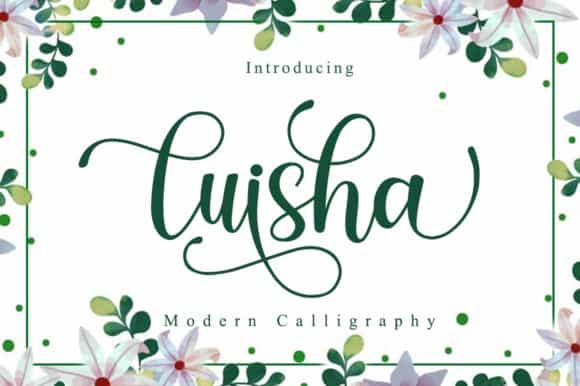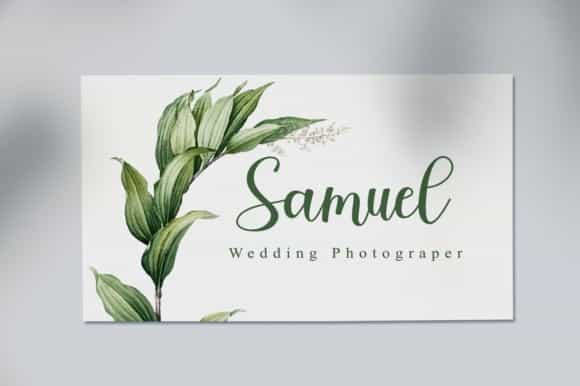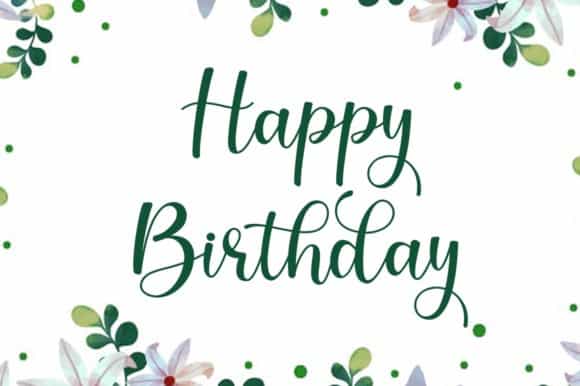
Discover Luisha Modern Calligraphy Font, part of the Calligraphy collection—a versatile and unique font perfect for adding a personal touch to your projects. Download it for free and enjoy crafting designs with style, from invitations to social media posts. This font is available exclusively for personal use, giving you the freedom to create without limits. Unlock your creativity with Luisha Modern Calligraphy Font today!
Luisha is a modern script calligraphy font that has been handmade and contains many other versions. Now it is opentype! It is clever and it is useful in Photoshop! You are welcome to use it for various purposes: Logo, wedding invitation, headline, signature, t-shirt design and many others.